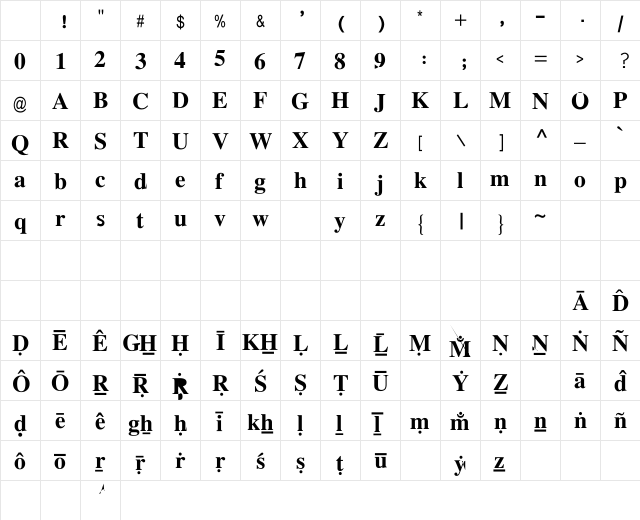
Complete padmaa- Bold.0.6 glyph index. Displaying only characters natively supported by padmaa- Bold.0.6 font.
padmaa- is a composed and adaptable typeface that performs quietly and consistently across a wide range of design contexts. Its bold stroke weight gives it real presence on the page.